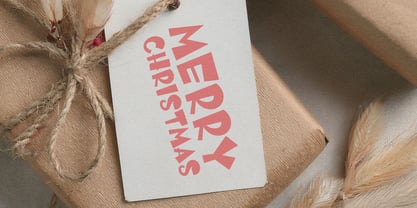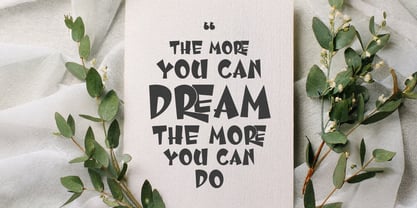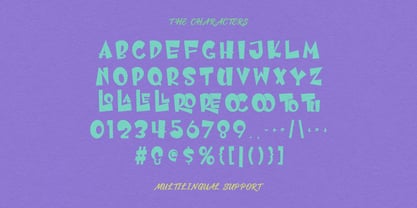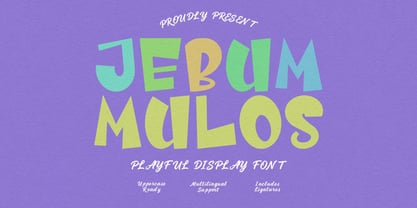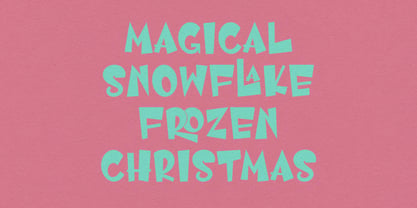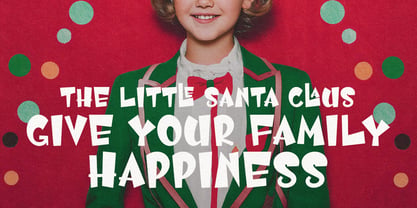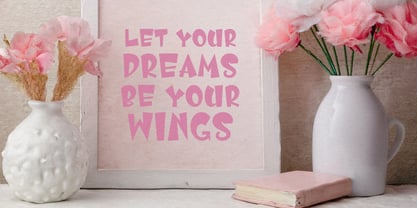
Jebum Mulos
by Maulana Creative
The Jebum Mulos Font Family was designed by Gilang Maulana and published by Maulana Creative. Jebum Mulos contains 1 styles. More about this family
Introducing Jebum Mulos, a cheerful and vibrant playful display font designed to bring an energetic burst of fun to creative projects. This all-caps typeface comes complete with dynamic ligatures and multilingual support, making it highly versatile for unique thematic designs.
The irregular, bold shapes give it a hand-cut, whimsical aesthetic that works beautifully for holiday greetings and festive decorations. It provides an eye-catching visual for motivational quote framing or social media graphics. Whether designing a delightful book layout, a striking digital poster, or cheerful branding for family-oriented content, the full character set ensures a distinctive, joyful look every time.
Designers: Gilang Maulana
Foundry: Maulana Creative